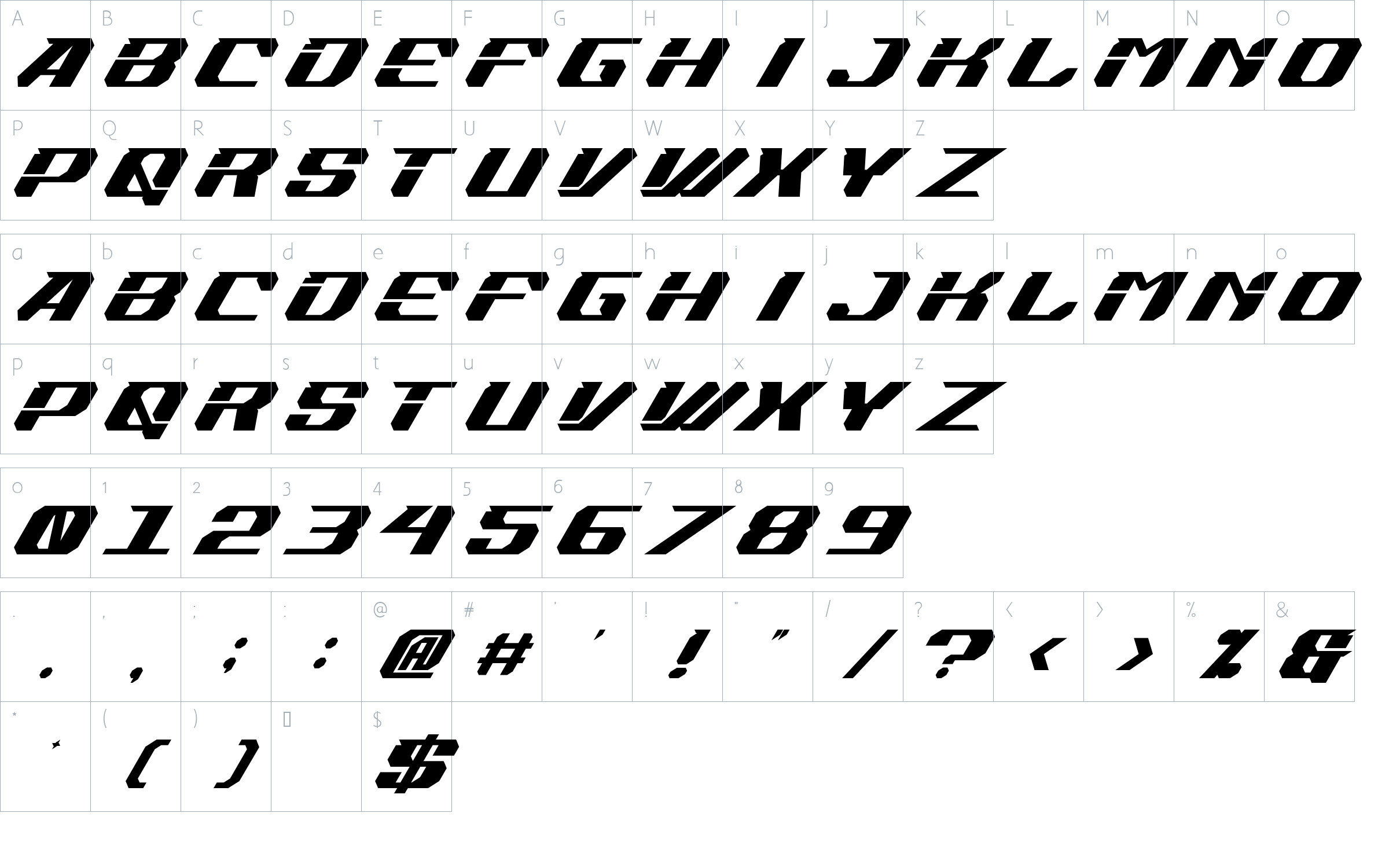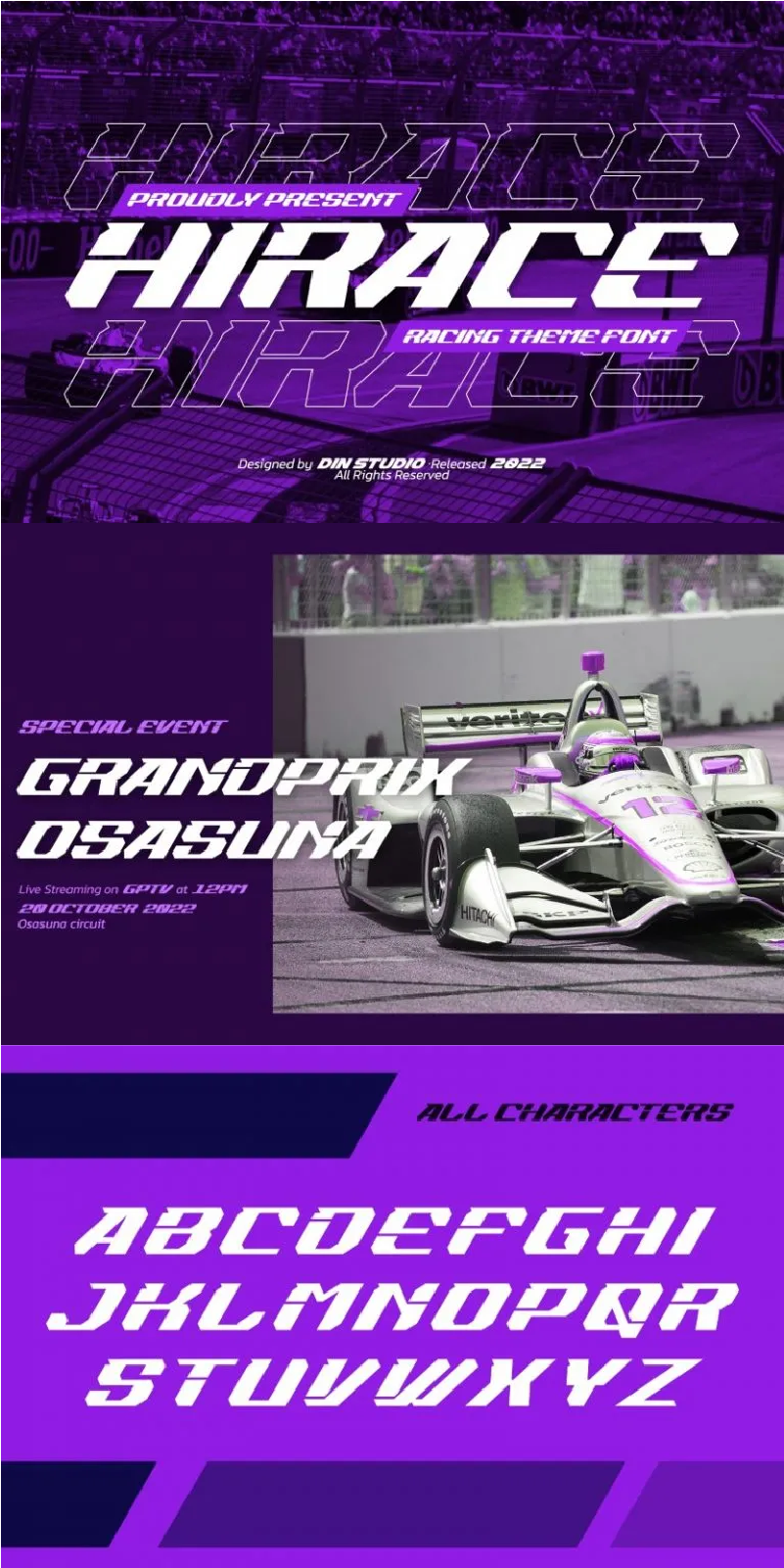
Hirace Font
About Hirace
Hirace is a display font in capital letters perfectly created to meet your needs. A racing theme sticks in its display, which is a brilliant idea. This font, in accordance with its theme, shows a strong brave character to use anytime designers need a large-sized text. Other incredible features are also available to maximize the design projects.
Apply this font for any design projects such as posters, banners, logos, book covers, headings, printed products, merchandise, social media, and so on. Find out more ways to use this font by taking a look at the font preview.